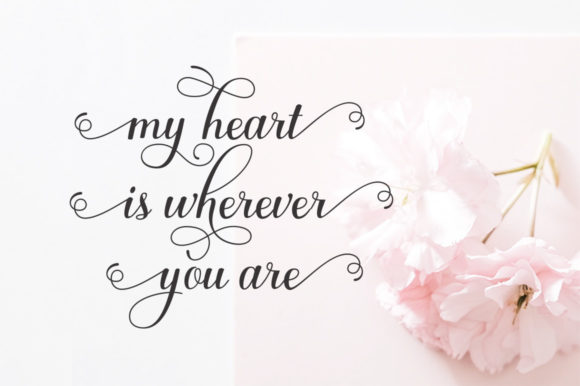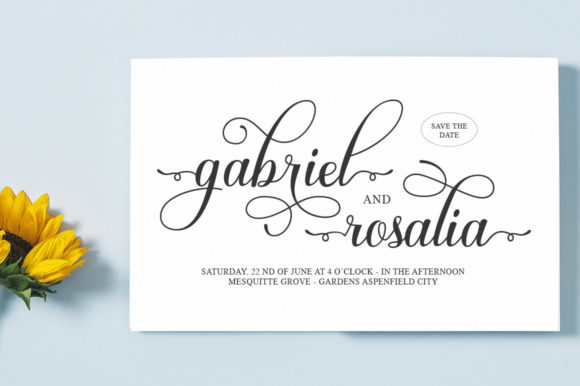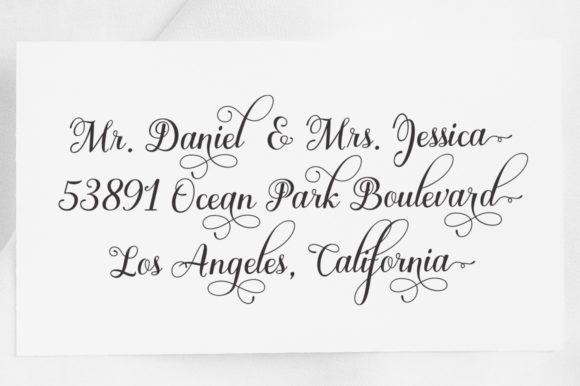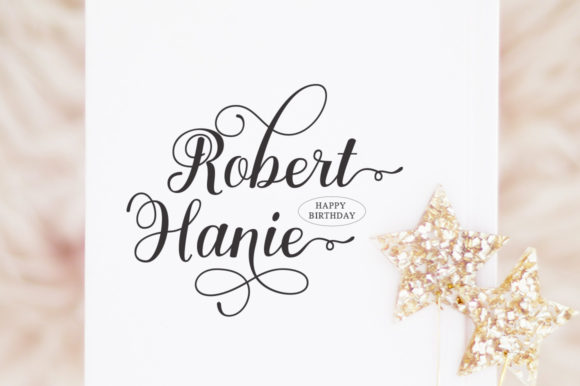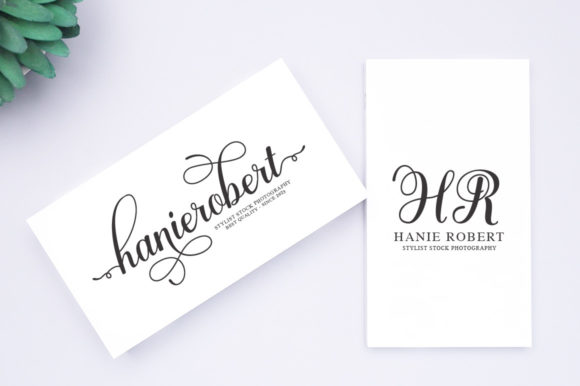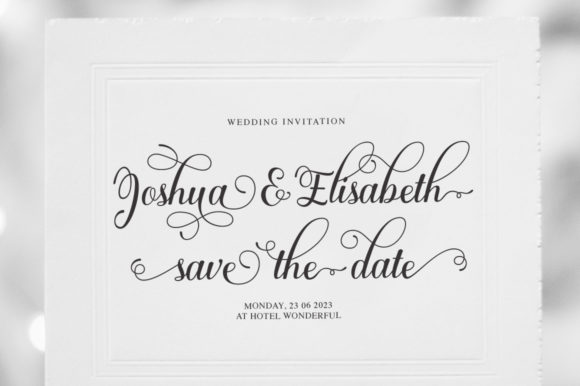
Introduction to Enkeyla Script Font
Enkeyla Script is an enchanting calligraphy font.
This versatile script font has a wide spectrum of applications ranging from greeting cards to headlines Enkeyla Script is PUA encoded which means you can access all of the glyphs and swashes with ease.
Key Features of Enkeyla Script Font
Why Choose Enkeyla Script Font?
Enkeyla Script Font offers exceptional quality and versatility, making it a valuable addition to your design toolkit. Whether you’re creating for personal projects or commercial use, Enkeyla Script Font delivers professional results.